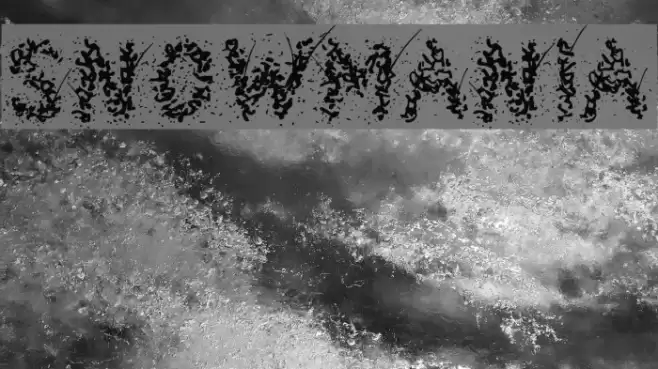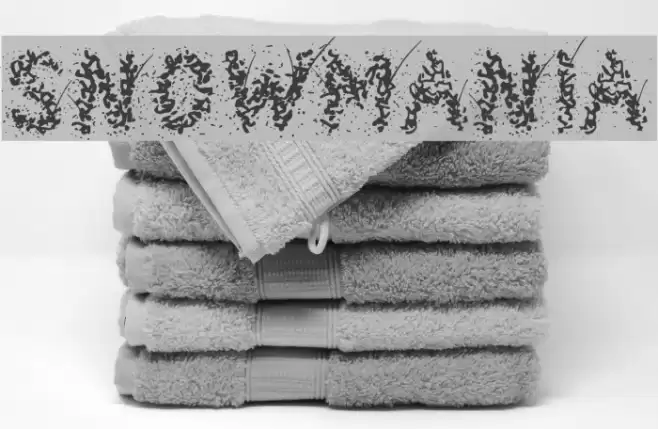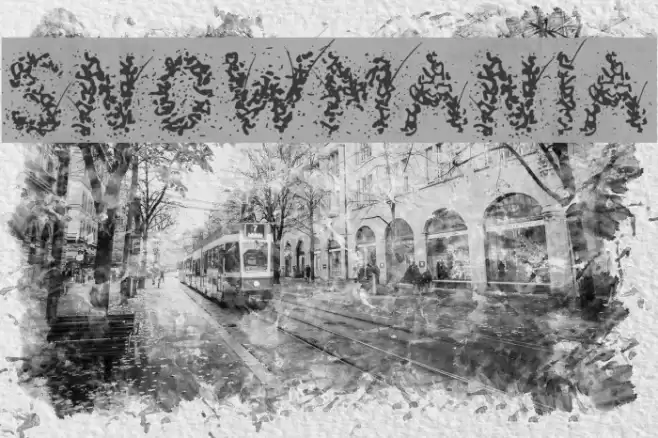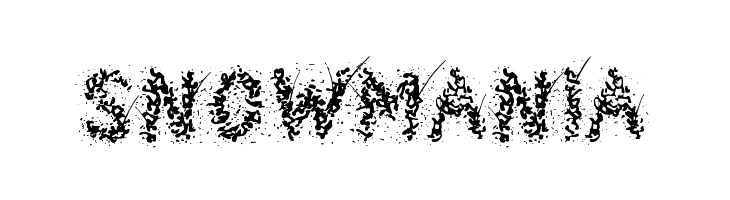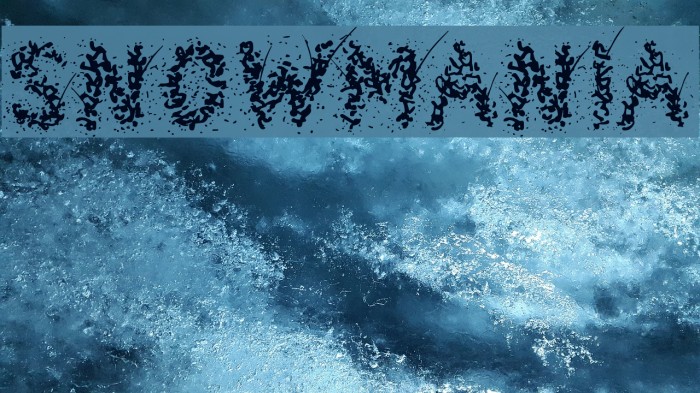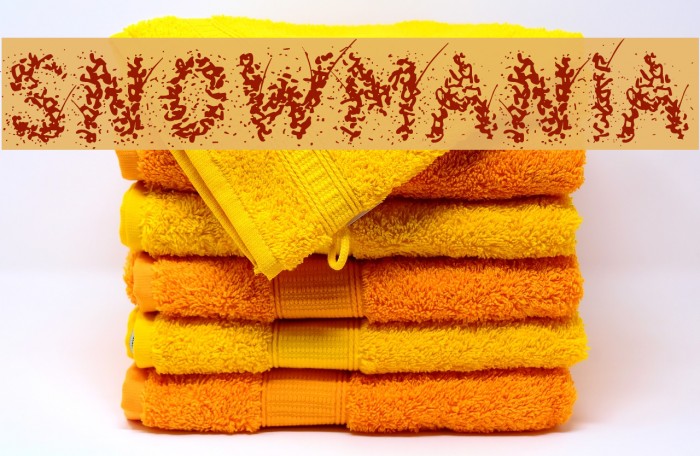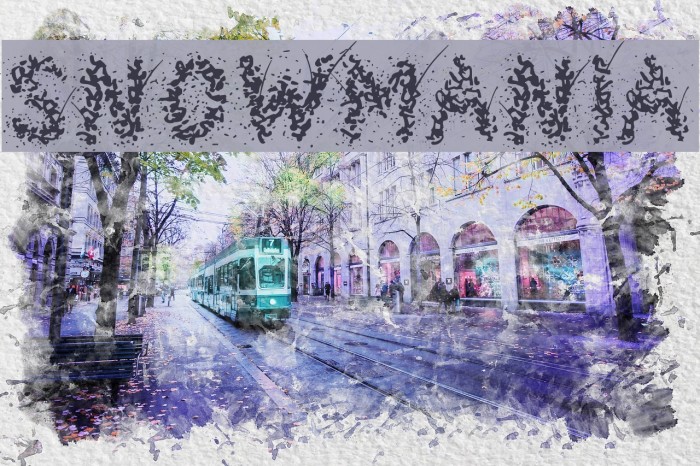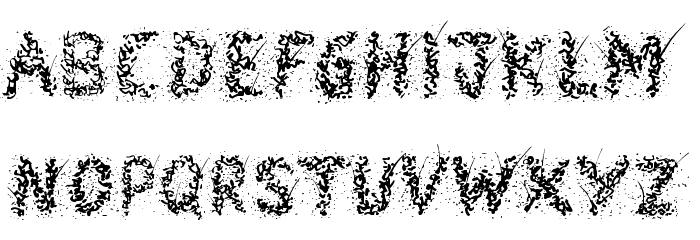
Snowmania Font
Snowmania Description
This font features a highly decorative and textured style, reminiscent of snowflakes or frost patterns. Each character is intricately designed with a flurry of small, scattered elements that create a sense of movement and chaos. The uppercase and lowercase letters maintain a consistent style, with the same level of detail and complexity. The font's unique appearance makes it stand out, capturing attention with its artistic flair. It is ideal for creating a winter or holiday-themed design, where the visual impact of the text is crucial. The font's intricate design may not be suitable for small text sizes, as the details could become lost.
A decorative, snowflake-inspired font with intricate, textured characters from Uncategorized fonts.
- Proposed Projects: Ideal for holiday cards, winter-themed posters, festive invitations, and decorative headlines.